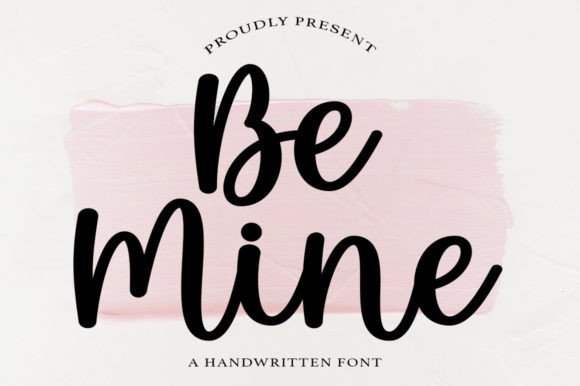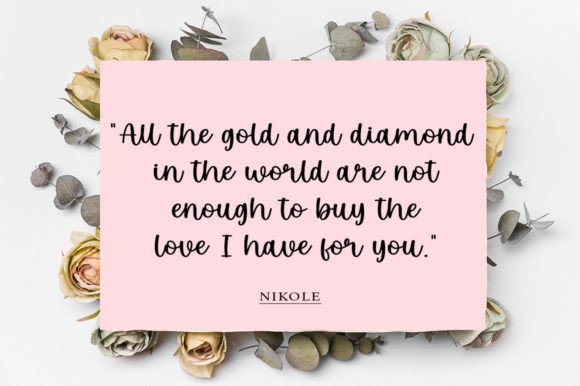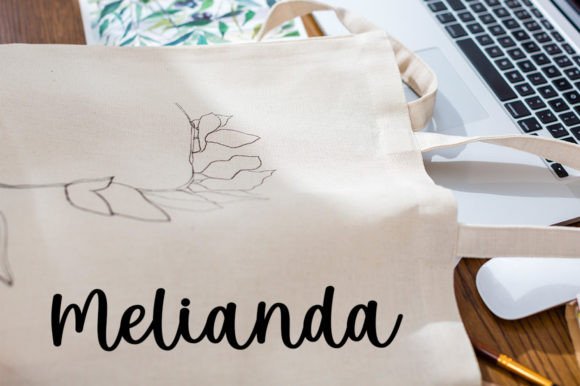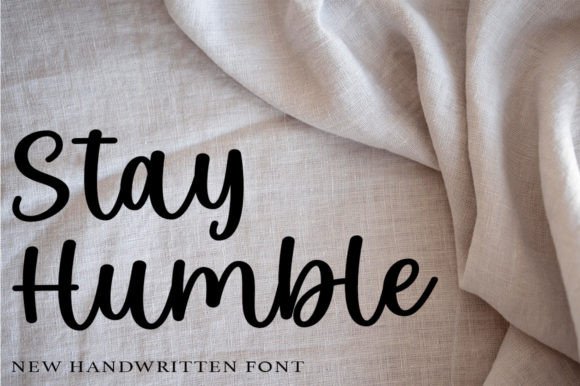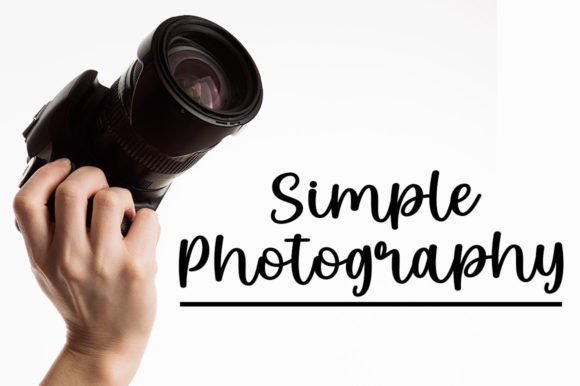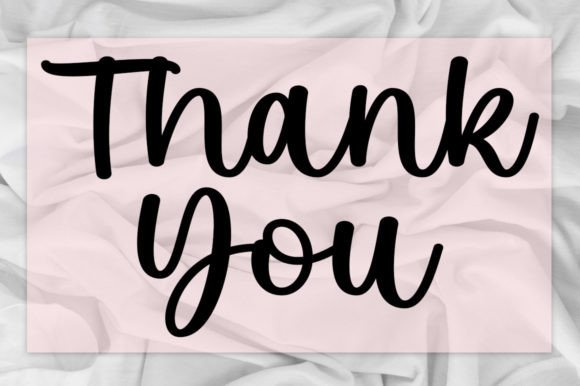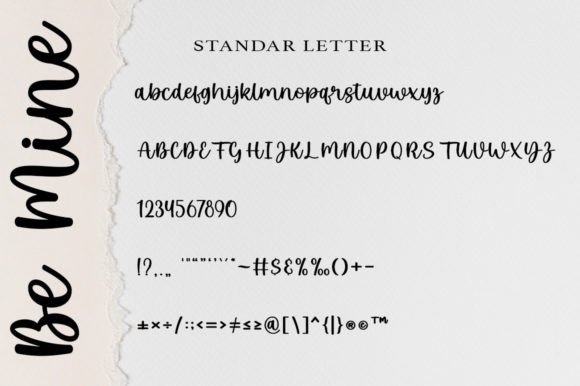
The Perfect Script: Unveiling the Be Mine Font
Have you ever been rummaging through your grandmother’s attic, and stumbled upon a dusty old trunk filled with handwritten letters and vintage postcards? The memories that come flooding back are a treasure trove of inspiration, aren’t they? For designers, these nostalgic moments are a reminder that there’s beauty in imperfection, and that’s exactly what the Be Mine Font is all about.
With its elegant, cursive script, the Be Mine Font is a versatile tool for adding a touch of personality to any project. Whether you’re creating a wedding invitation, a social media post, or a product label, this font is sure to capture the essence of your brand’s unique style. Its value lies in its ability to evoke emotions and create a sense of connection with your audience.
For designers, the Be Mine Font is a valuable asset in their creative toolkit. Its versatility and charm make it a go-to choice for any project that requires a handwritten touch. So, why settle for a generic font when you can make a statement with the Be Mine Font?
Key Features of Be Mine Font
- Font Type: Script Font
- Unique Characteristics: Whimsical, cursive design with a touch of romance and playfulness
Be Mine Font Review
I recently had the chance to work with the “Be Mine Font” and I have to say, it’s a sweet addition to any design project. Here’s my honest review:
The Be Mine Font has a unique charm to it, making it perfect for Valentine’s Day or any other romantic occasion.
The font is highly customizable, allowing designers to adjust the size, color, and style to suit their project’s needs.
The Be Mine Font is also very versatile, working well in both digital and print designs.
The font’s unique charm can sometimes feel too sweet or over-the-top, which may not be suitable for all projects.
The font’s customization options can also feel overwhelming for less experienced designers.
The Be Mine Font may not be the best choice for projects that require a more serious or professional tone.
The Be Mine Font is a great addition to any designer’s toolkit, but it’s not a one-size-fits-all solution. With its unique charm and high level of customization, it’s perfect for projects that require a touch of romance or whimsy. However, designers should be aware of its limitations and use it judiciously to achieve the desired effect.
Use Be Mine Font in combination with other elegant fonts to create a cohesive design. Experiment with different font sizes, colors, and arrangements to create a unique look. Consider using Be Mine Font for titles or headings to add a touch of sophistication to your design.
Be Mine Font is perfect for creating designs related to romance, love, and relationships. Some common use cases include:
- Valentine’s Day cards and gifts
- Wedding invitations and decorations
- Anniversary and birthday cards
- Love-themed social media graphics